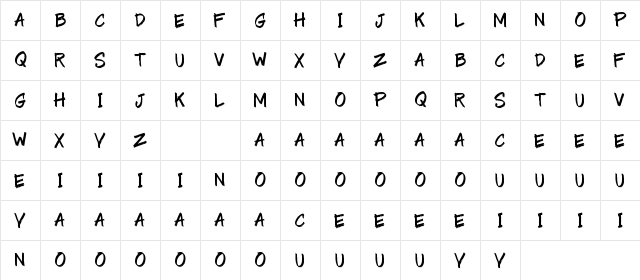
Noise Demo Regular Font Preview
Noise Demo Regular
Noise Demo Regular Font Details
| Foundry | Satriya Anggun |
| Designer | Satriya Anggun |
Design Context for Noise Demo Typeface
Noise Demo is a composed and adaptable typeface that performs quietly and consistently across a wide range of design contexts.